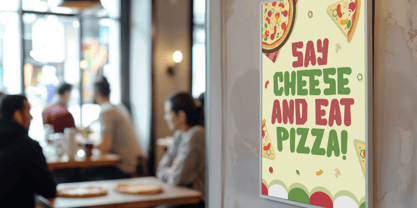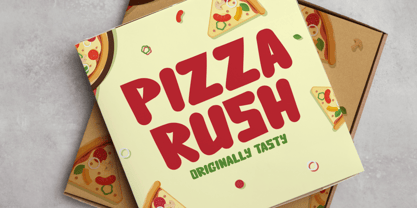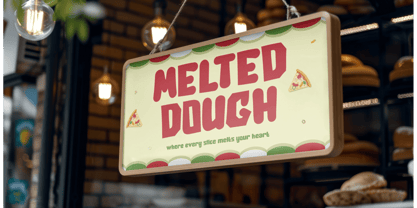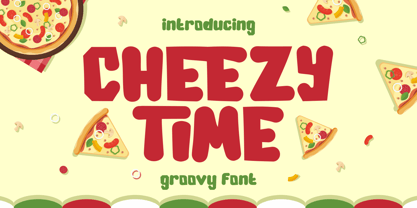
Cheezy Time
by Shanaf
The Cheezy Time Font Family was designed by Yesie Erma Yunita and published by Shanaf. Cheezy Time contains 1 styles. More about this family
Cheezy Time Groovy Font captures the joy and flavor of playful typography with its bold and soft-edged character design. The font features thick, rounded strokes and slightly uneven shapes, creating a natural, hand-crafted feel that adds personality and warmth. Its proportions are wide and balanced, offering a chunky silhouette that enhances readability while keeping a fun and dynamic look. The smooth curves and groovy rhythm give it a nostalgic yet modern appeal, making Cheezy Time Groovy Font a great choice for eye-catching titles and bold headlines that need a cheerful touch. Perfect for food-related branding, restaurant packaging, posters, and advertisements, this font radiates an appetizing, friendly vibe that attracts attention instantly. It’s also suitable for playful logo designs, children’s books, or lifestyle projects that require a joyful aesthetic. The thickness of each letter ensures strong visual impact, while its quirky details make it feel approachable and creative. Cheezy Time Groovy Font combines fun and functionality, giving your design a lively personality that feels both retro and modern. It’s a must-have for designers who want to bring a happy, flavorful tone to their visual creations.
Designers: Yesie Erma Yunita
Foundry: Shanaf